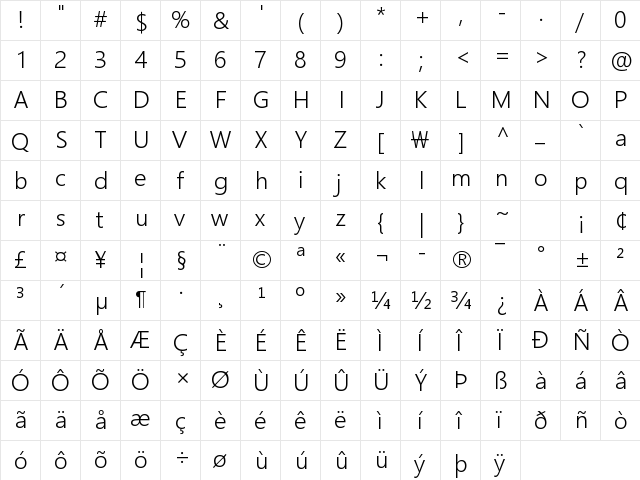
Malgun Gothic Semilight Regular
| Foundry | Microsoft Corporation |
| Designer | Kyungbea Lee; Daekwon Kim |
Design Context for Malgun Gothic Semilight Typeface
Malgun Gothic Semilight has the quiet confidence of well-executed sans-serif typography: versatile, unobtrusive, and dependable at any size. Its slender proportions lend an understated elegance to any composition.
A natural fit for high-end product packaging, luxury brand identities, and refined web typography.
Font Pairing: Pair Malgun Gothic Semilight with a medium or bold serif for headlines — the weight contrast creates an elegant, high-end feel.
Pro Tip: Use Malgun Gothic Semilight with generous tracking and line-height for the most luxurious effect — light sans-serifs reward spacious, considered layouts.